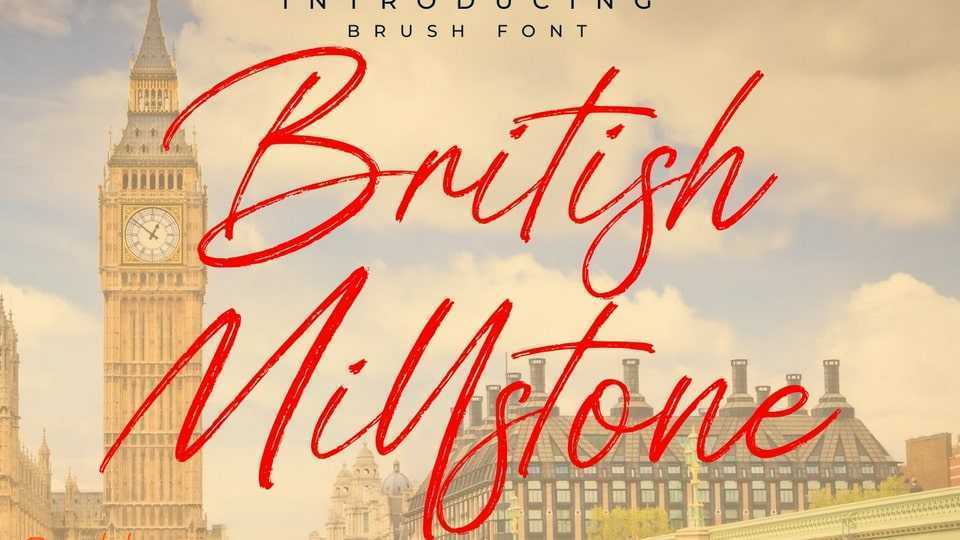
Download British Millstone font, a hand painted brush typeface, made by a natural flow and authentic style. This font is perfect for an magazine, clothes, quotes, and so much more.